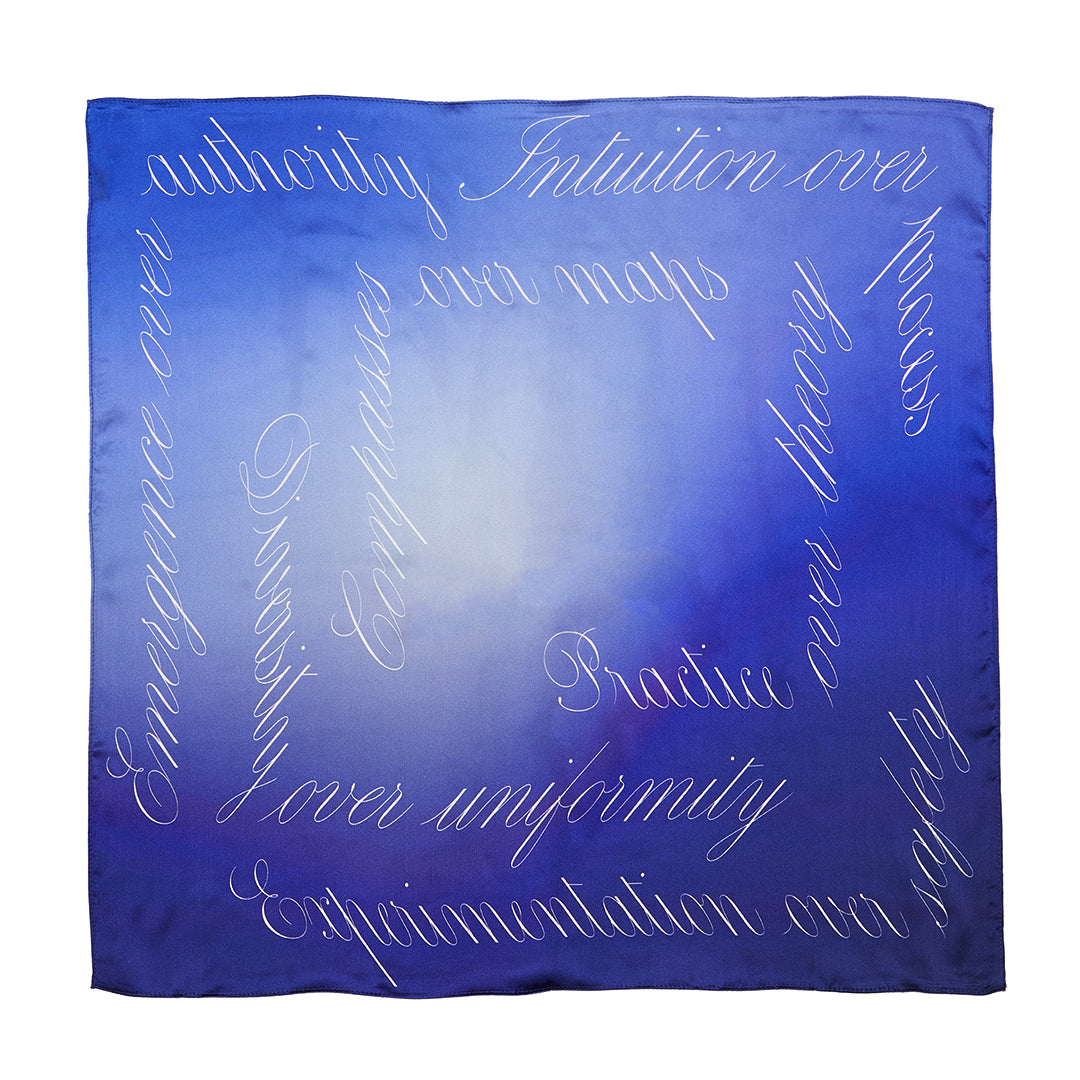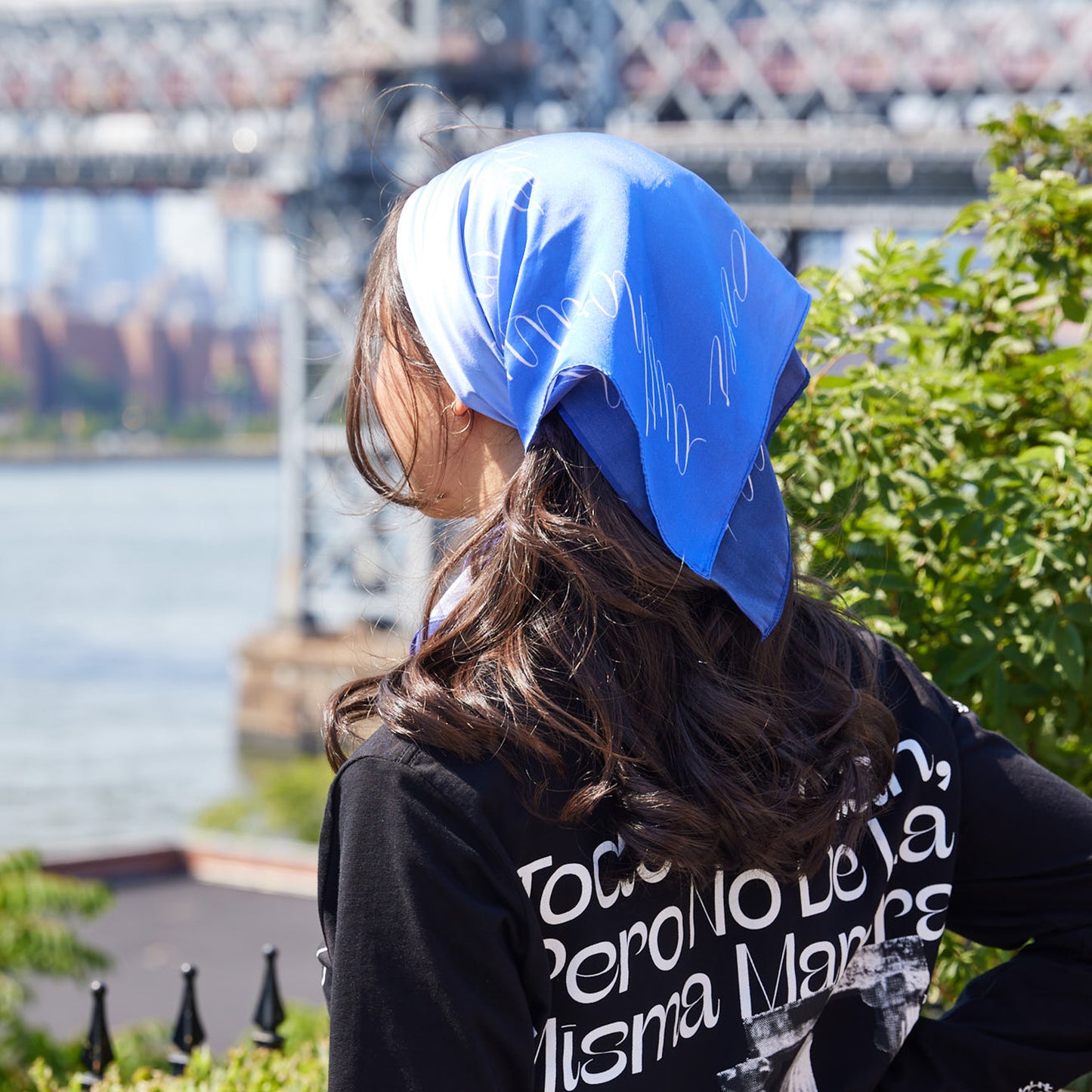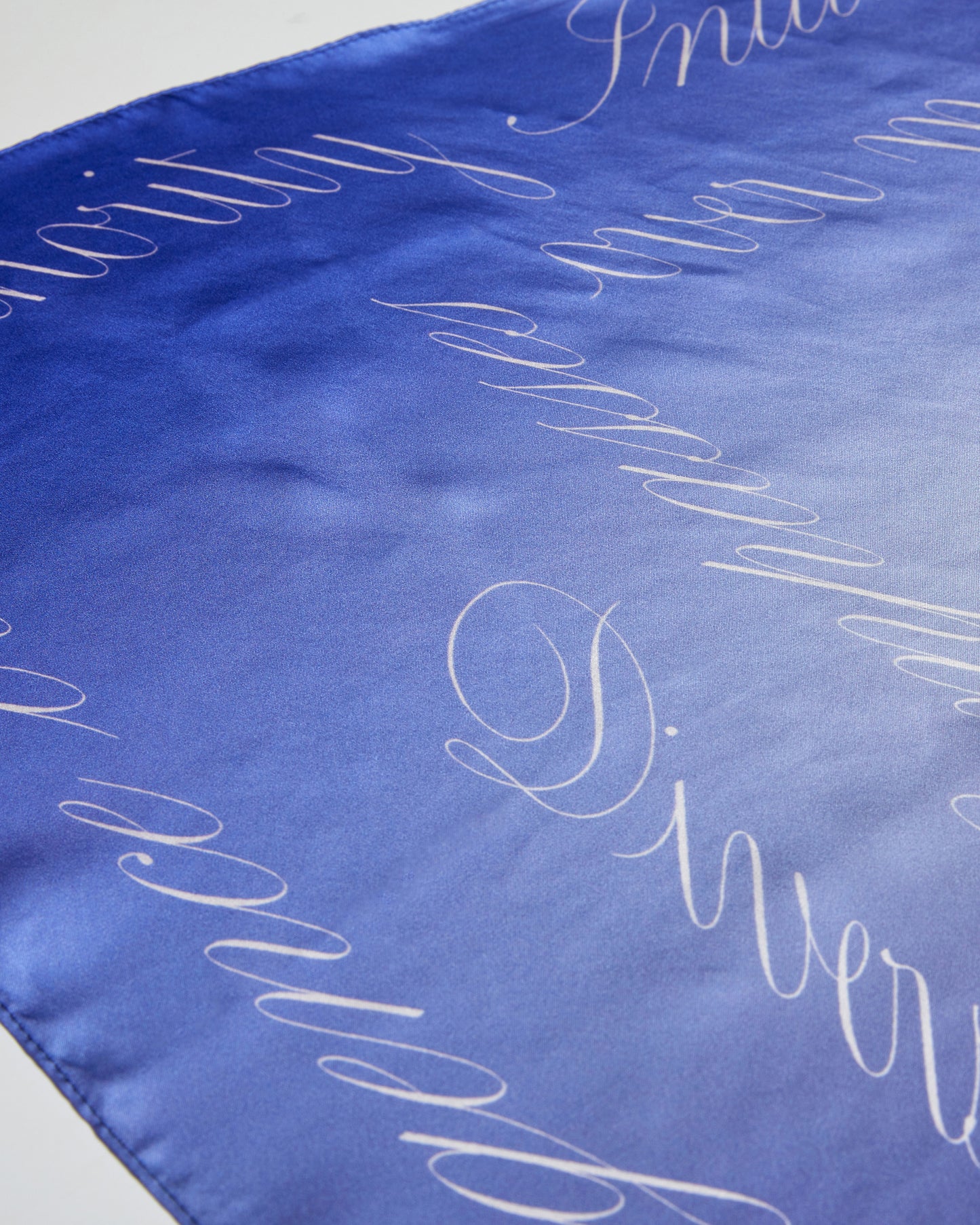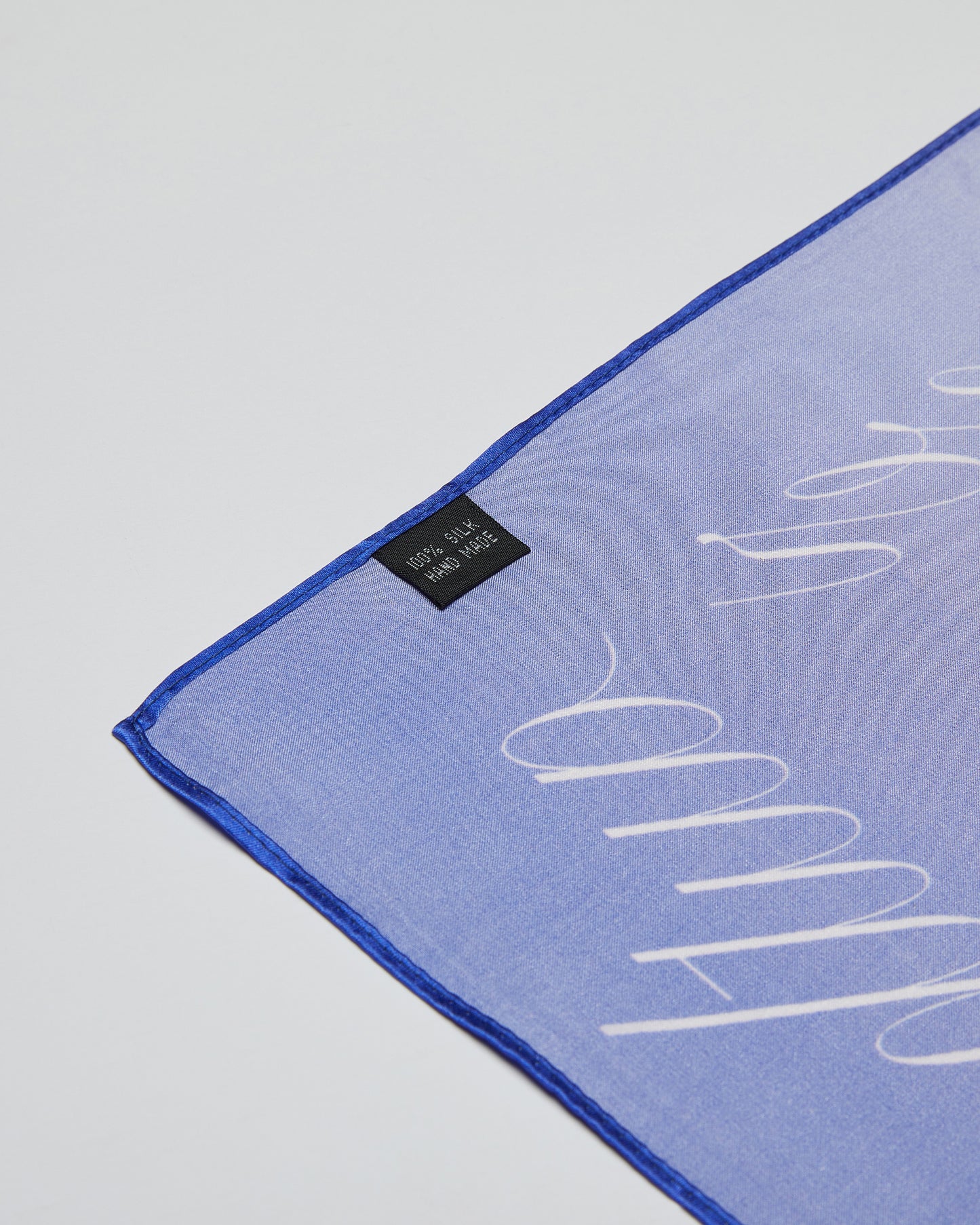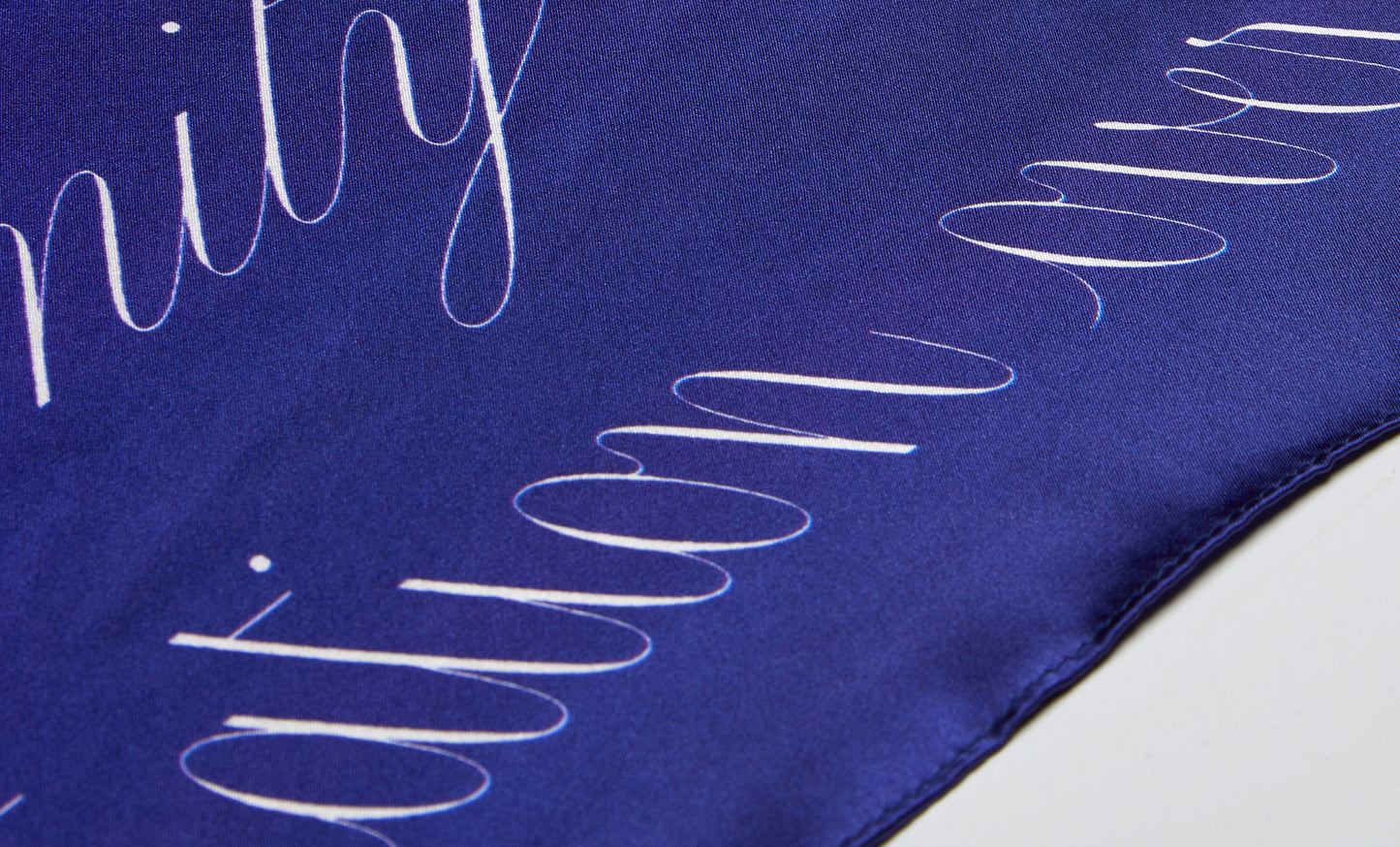
ST-04 Carta Nueva "Intuition" Silk Scarf
Our 100% silk scarf is fine and strong, much like Carta Nueva itself. The multi-directional styles of the typeface aren’t publicly available yet, but we’ve used them here to radical effect: set as six mantras, the scarf showcases Carta's unbounded potential. The letterforms–as words and as graphics–act as a compass and a soft reminder to let intuition be your guide:
"Compass over maps"
"Emergence over authority"
"Practice over theory"
"Experimentation over safety"
"Diversity over uniformity"
"Intuition over process"